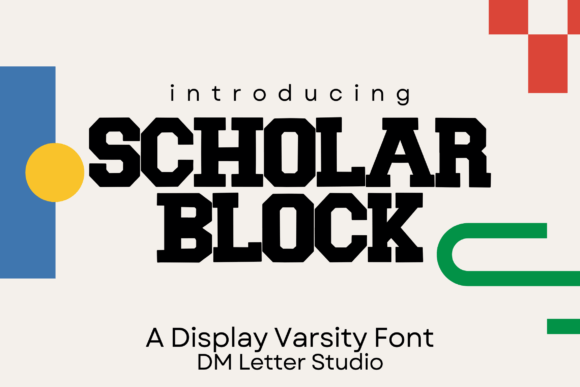
14 Best ‘Back to School’ Display Fonts for Every Classroom Project
Getting ready for a new school year always puts me in a creative mood, and this collection of 14 ‘back to school’ display fonts is my way of celebrating it. Whether you’re a teacher decorating your classroom, a parent putting together a fun project, or a designer looking for the perfect typeface, this roundup has something for every occasion. From playful hand-drawn styles to bold varsity lettering, each font brings its own personality and charm to the table, making it easy to find the right match for posters, worksheets, invitations, and everything in between. So grab a cup of coffee, settle in, and let’s explore these fonts together ā your classroom projects are about to get a whole lot more fun.
Back to School Font 1
Nothing captures that nostalgic, first-day-of-school energy quite like a font with real retro flair, and Back to School delivers exactly that. This display font brings a cool, throwback vibe with bold, confident letterforms that instantly feel fun and full of character ā the kind of typeface that makes headlines pop without trying too hard. Its retro personality gives it a timeless quality that works just as well today as it would have decades ago.
A detail I really appreciate is that it’s PUA encoded, meaning all those extra glyphs and alternates are easy to access without digging through hidden panels. That makes it a genuinely practical pick for back to school projects, magazine layouts, branding, or logo design, where having quick access to stylistic variations can make all the difference. It’s a font that pairs cool retro charm with real everyday usability.
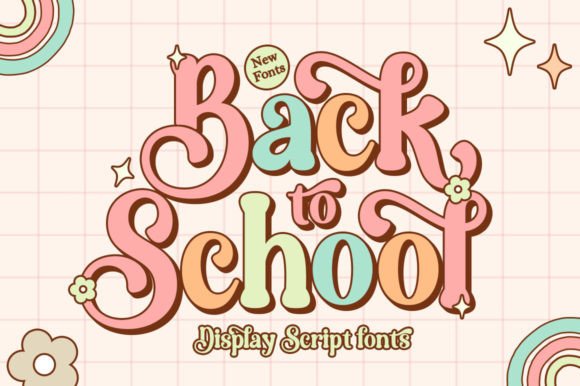
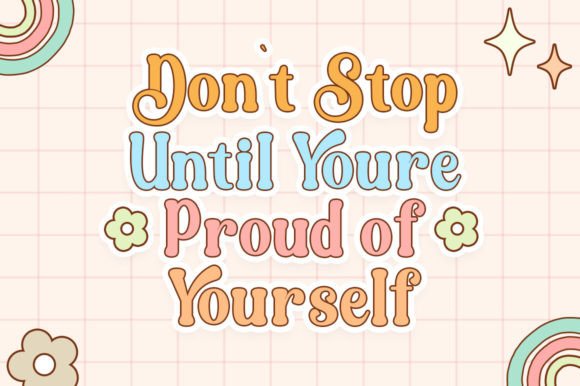
Back to School Font 2
Bundles like this one always make me a little excited, because Back to School Family Font packs so much creative flexibility into a single collection. This display font family has a handcrafted, whimsical feel that instantly brings warmth to classroom-themed designs ā every letterform feels playful yet personal, like something a favorite teacher might’ve doodled themselves. It’s clearly built with real classroom energy in mind.
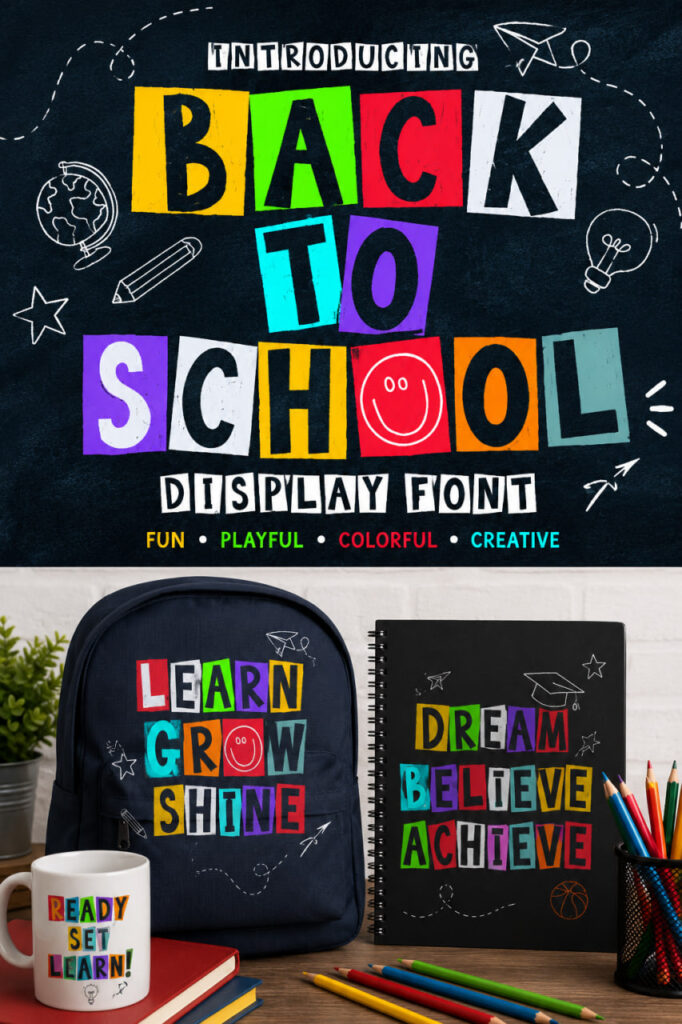
Teachers, parents, and crafters will especially appreciate how versatile this bundle turns out to be in practice. From personalized back to school gifts to classroom decor and fun apparel designs, having a full font family on hand means you’re never stuck searching for the right style or mood. It’s a genuinely handy collection to keep in your creative toolkit all season long.
Back to School Font 3
Some fonts just have that effortless “cool factor,” and this take on Back To School nails it perfectly. This display font feels expertly crafted, with bold, fun letterforms that carry a confident, contemporary edge ā the kind of design that looks intentional and polished no matter where you drop it in. It’s playful without feeling childish, which makes it easy to use across a wide range of styles.
What really stands out is just how adaptable it is across so many project types, from branding and posters to t-shirts, stickers, and wall art. It’s the kind of font that quietly earns a permanent spot in your library, ready to enhance whatever back to school project comes your way. Truly a versatile asset worth having on hand.
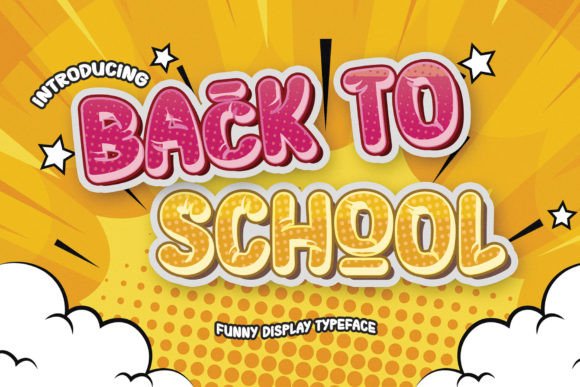
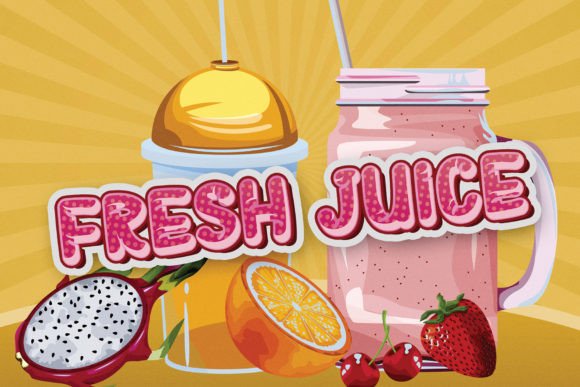
Back to School Font 4
Every once in a while a font comes along with just the right amount of quirkiness, and this Back to School design hits that sweet spot beautifully. This display font feels joyful and completely relaxed, with letterforms that carry a laid-back, carefree energy ā nothing stiff or overly polished, just genuine fun baked right into the design.
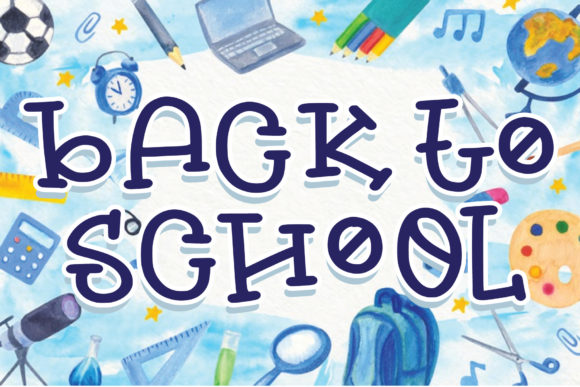
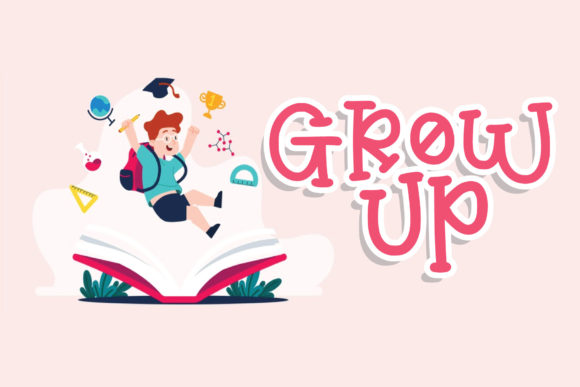
That easygoing charm is exactly why it’s earned a permanent spot in my go-to rotation for back to school and children-related projects. Whether it’s classroom materials, kids’ event flyers, or playful branding, this font brings that light, cheerful mood without any extra effort. It’s the kind of typeface that makes school-themed designs feel a little more fun.
Back to School Font 5
Bundles built with real branding flexibility in mind always catch my eye, and this Back To School set is a great example. This display font has a cool, lettered style that works especially well when schools or creators want typography that aligns with a specific look or color scheme ā pairing it with the right palette instantly elevates T-shirts, quotes, and custom DIY craft projects.
One practical detail worth mentioning: the black version is fully compatible with Cricut and other cutting machines, making it a solid pick for back to school crafting projects. The color version, on the other hand, works best in programs like Photoshop, Illustrator, Silhouette, and Inkscape, so it’s worth checking the Ultimate Font Guide if you’re unsure which version fits your workflow.
Back to School Font 6
There’s a certain friendliness that comes through the moment you see this Back to School design in action. This display font has a childish, approachable charm, yet it stays impeccably easy to read ā a balance that’s harder to strike than it sounds, and one that makes it genuinely pleasant to work with across different projects.